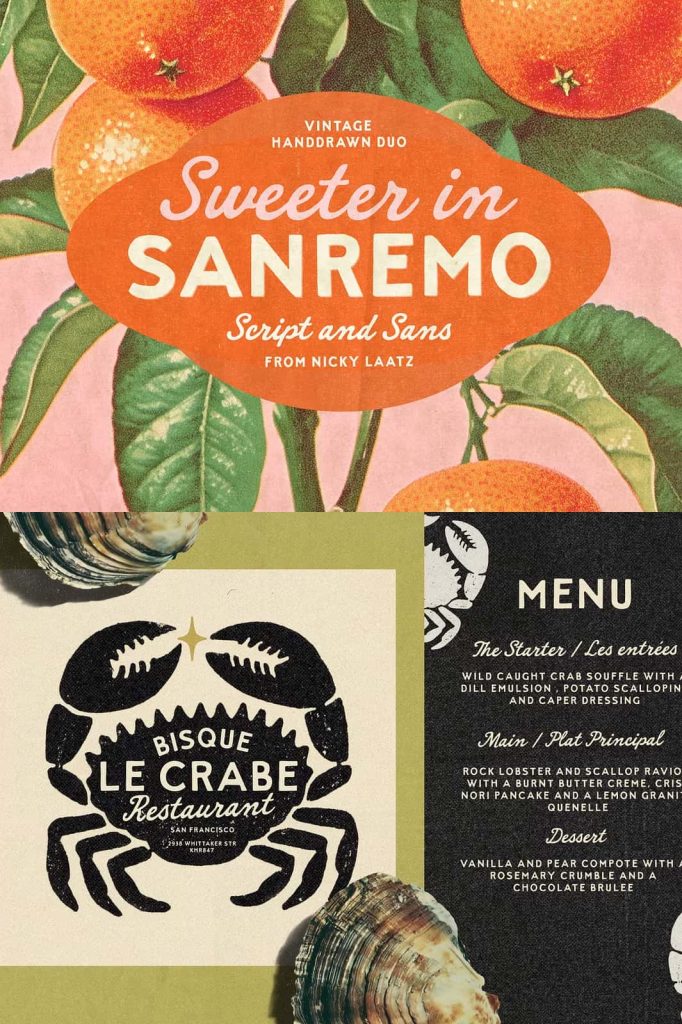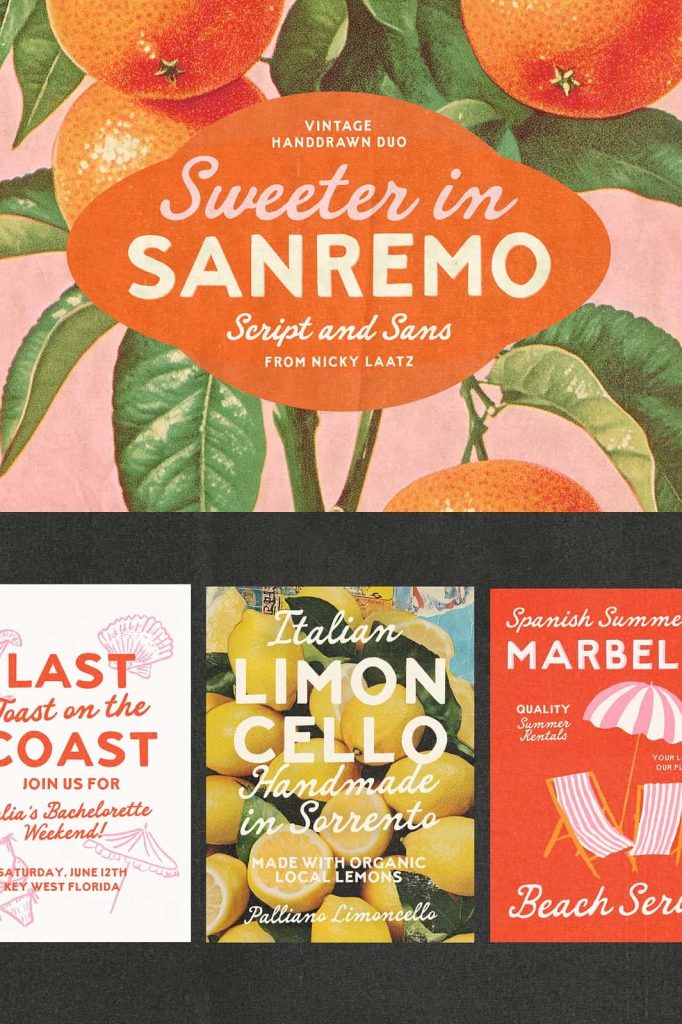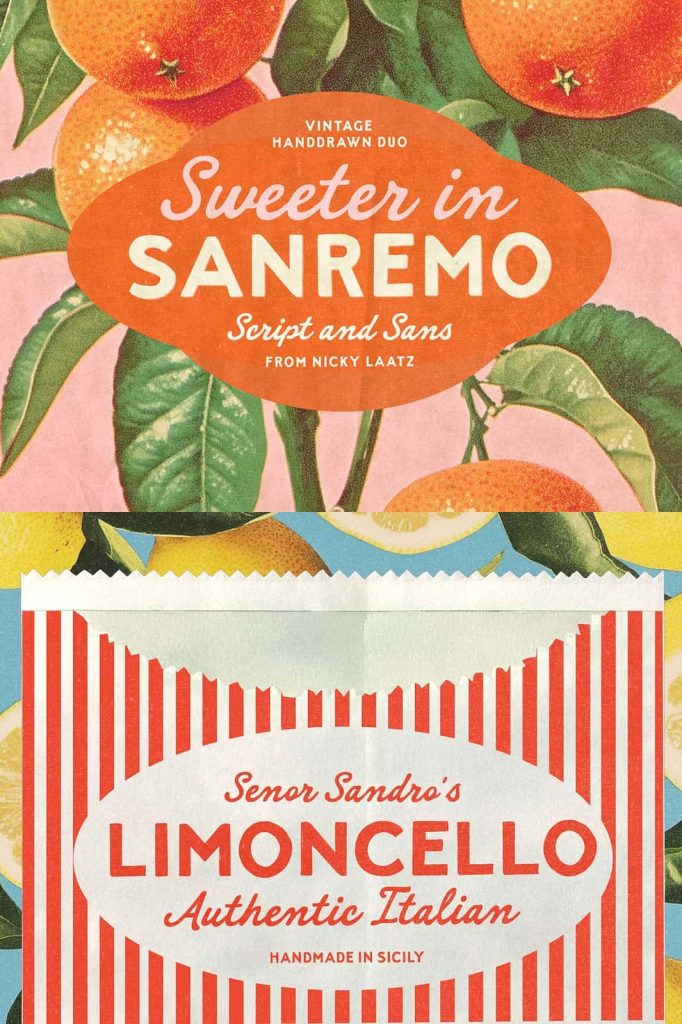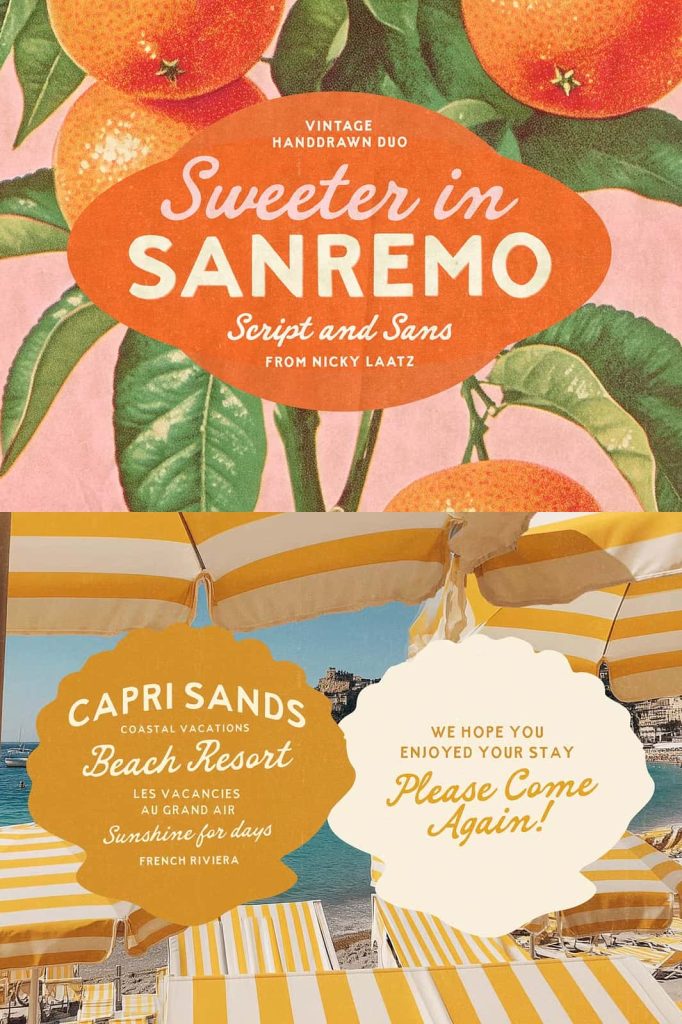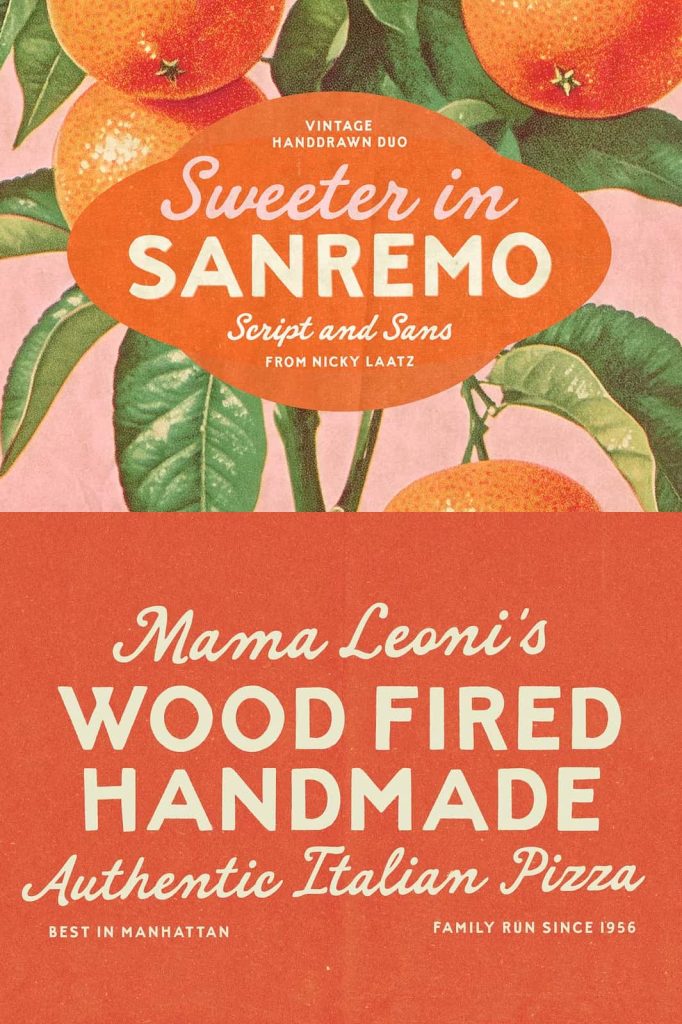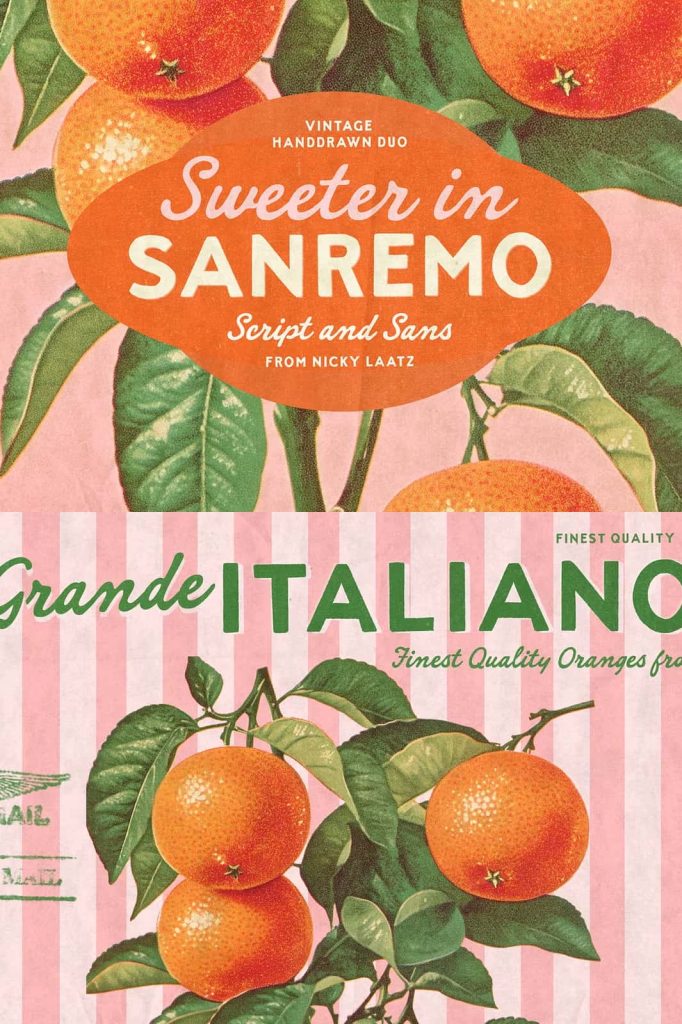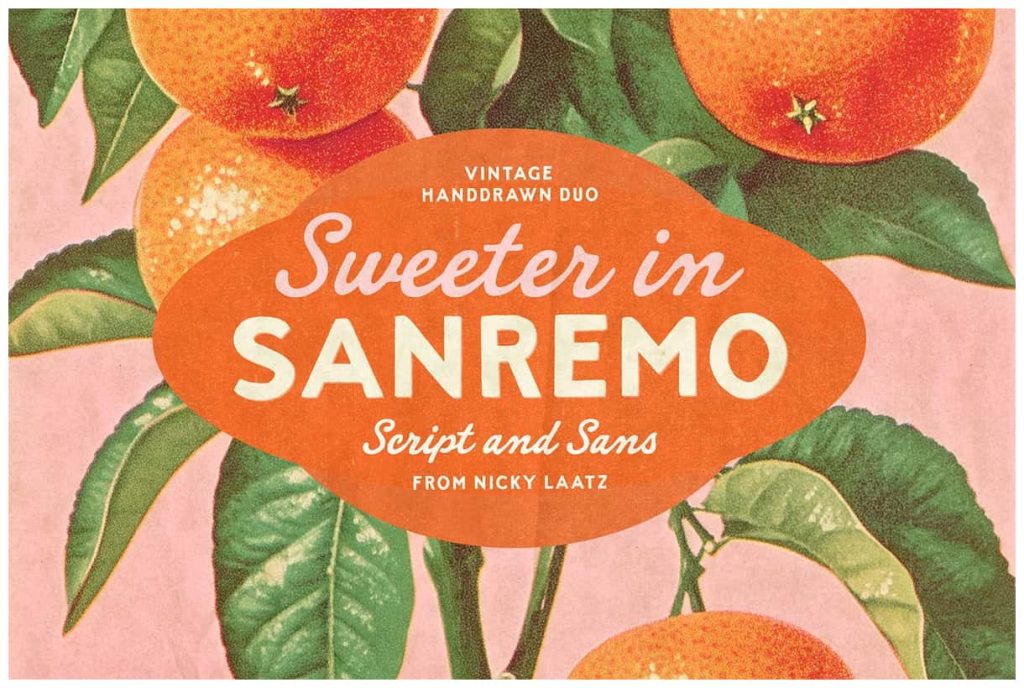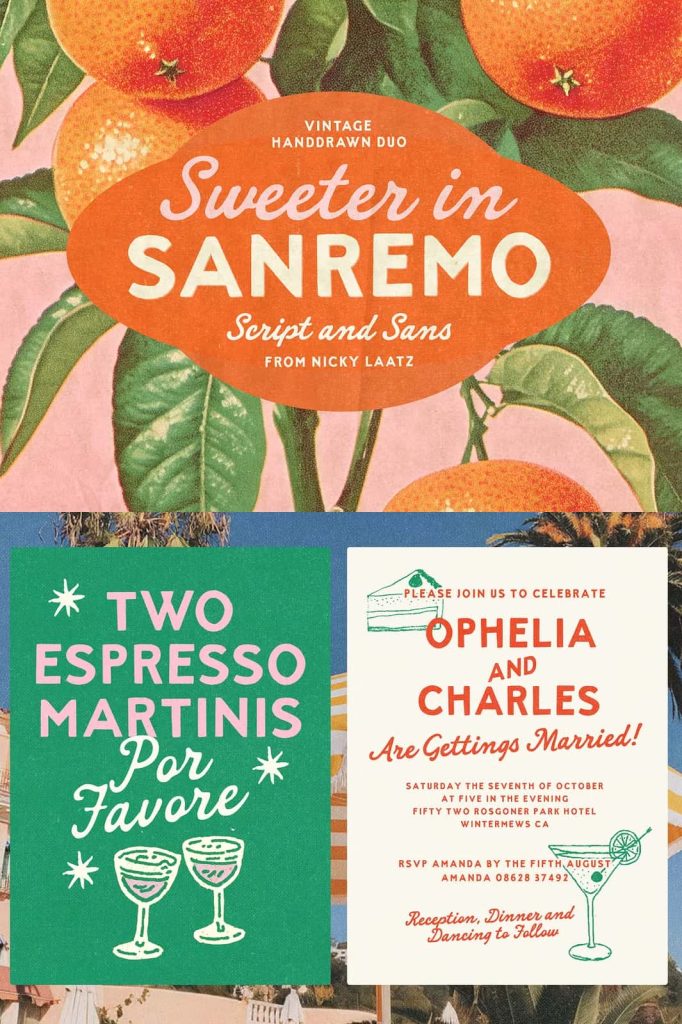
Sanremo Duo Font – A Bold and Playful Typeface Pair for Creative Designers
Sanremo Duo Font is a dynamic combination of two complementary styles that bring both power and personality to your designs. This unique font duo blends a bold, hand-drawn all-caps sans serif with a smooth, flowing handwritten script. Together, they create a perfect balance of confidence and charm. Whether you’re designing packaging, crafting a brand identity, or creating social media graphics, Sanremo Duo helps your words stand out with energy and flair.
Discover the Power of Dual Typography
The beauty of Sanremo Duo Font lies in its ability to merge two distinct typographic voices into one harmonious design system. The bold all-caps sans serif commands attention, ideal for headlines, logos, and statements that need a strong visual impact. Meanwhile, the handwritten script adds a touch of human warmth and friendliness, softening the tone and creating a playful personality that connects with audiences on an emotional level.
By pairing these two styles, Sanremo Duo offers endless creative possibilities. You can use them together to create contrast and hierarchy or individually to highlight different aspects of your message. This versatility makes it an invaluable tool for designers who want to convey both confidence and approachability.
Perfect Balance Between Bold and Playful
Sanremo Duo Font was crafted to express personality in every curve and stroke. The sans serif component features hand-drawn textures that give it an organic, authentic feel—ideal for brands that value individuality. Its bold, uppercase form captures attention instantly, making it perfect for headlines, signage, and packaging designs.
In contrast, the script typeface introduces movement and emotion. With its smooth flow and rounded edges, the handwritten style adds warmth and approachability. Whether used for taglines, signatures, or accents, this script complements the bold sans perfectly, giving your designs a natural rhythm and balance.
Versatile and Ideal for Multiple Design Applications
Thanks to its dual-style composition, Sanremo Duo Font fits seamlessly into a wide range of creative projects. It performs beautifully across print and digital media, maintaining clarity, readability, and visual impact. Its adaptable nature makes it suitable for designers, marketers, and creators seeking to express creativity through typography.
Use Sanremo Duo Font for:
- Branding and Logo Design: Craft memorable brand identities that balance strength and friendliness.
- Product Packaging: Add bold statements and soft script accents for unique visual appeal.
- Posters and Advertisements: Command attention with bold sans titles paired with smooth script details.
- Social Media Content: Create vibrant posts, banners, and quotes that engage your audience.
- Menu and Café Design: Use it to list ingredients, cocktail names, or taglines with playful charm.
- Invitations and Greeting Cards: Mix both styles for an elegant yet energetic impression.
Designed for Impact and Expression
Sanremo Duo Font doesn’t just look good—it performs exceptionally well. The all-caps sans serif provides structure and legibility, while the handwritten script injects character and emotion. Together, they give designers the flexibility to create balance between professionalism and playfulness. This makes Sanremo Duo particularly suitable for lifestyle brands, creative agencies, artisanal products, and any project that thrives on personality.
Both fonts are carefully designed to work cohesively or independently, providing a toolkit that adapts effortlessly to various design moods—from bold and edgy to warm and inviting. With its combination of power and charm, Sanremo Duo ensures that your message always makes an impact.
Why Designers Love Sanremo Duo
Designers appreciate Sanremo Duo Font for its balance of structure and spontaneity. The hand-drawn sans serif captures attention and delivers authority, while the handwritten script softens the tone with friendliness and creativity. The natural pairing of these two fonts makes them ideal for multi-purpose design workflows, allowing quick experimentation without losing visual harmony.
Its handcrafted texture adds authenticity, giving designs a distinctive handmade touch. This organic feel makes Sanremo Duo particularly appealing for projects that aim to communicate creativity, craftsmanship, and originality.
Conclusion: Bring Life and Character to Your Designs with Sanremo Duo Font
Sanremo Duo Font is a complete typographic package for creatives who want to infuse energy, warmth, and personality into their designs. The combination of a bold hand-drawn sans serif and a smooth handwritten script creates a visually engaging and expressive result that fits both vintage-inspired and modern aesthetics. From branding and packaging to social media and editorial layouts, this font duo ensures your words don’t just appear—they make a statement.
Embrace the creativity and charisma of Sanremo Duo Font and watch your designs come alive with bold energy and heartfelt style.